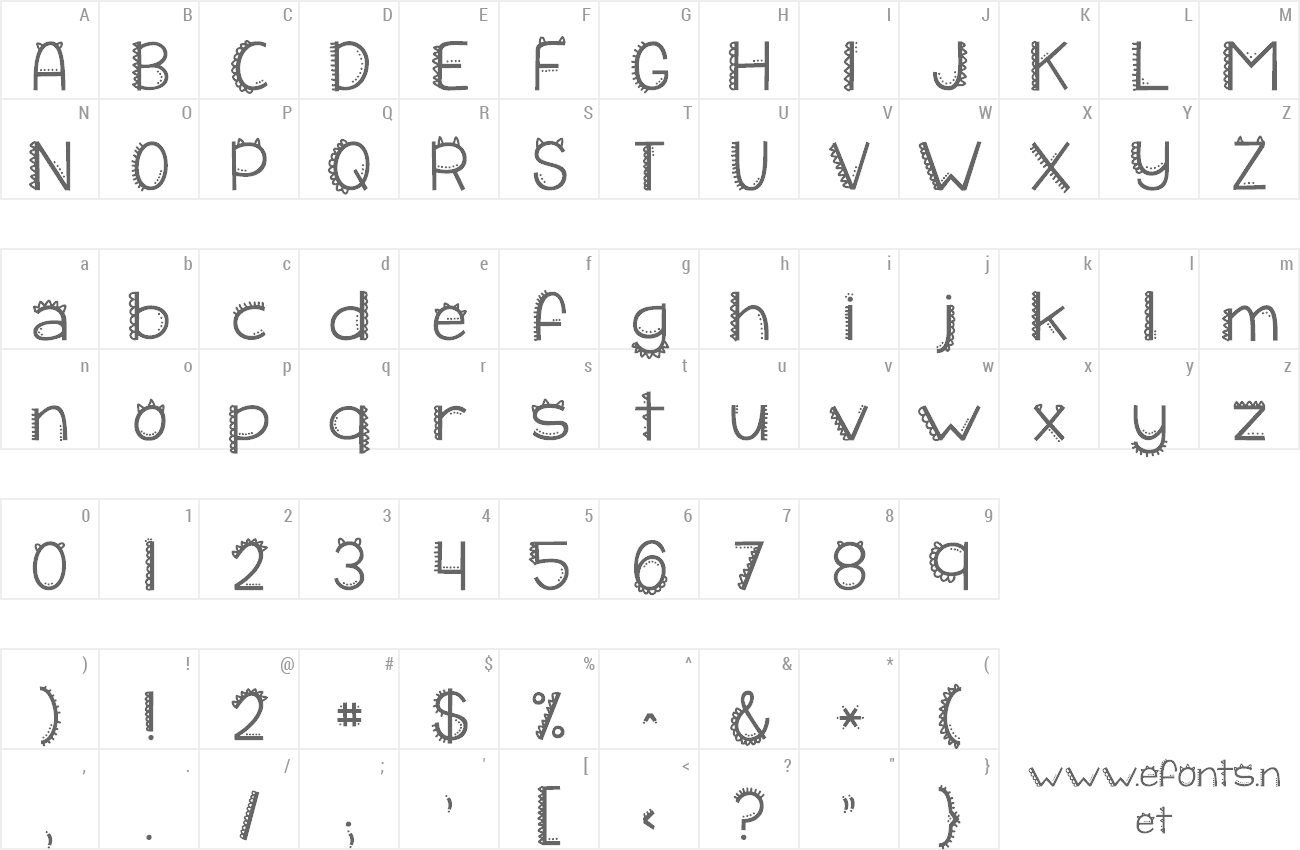
Preview and download KG I Like To Move It Font. Created by Kimberly Geswein in Fancy Cartoon styles with Free for personal use license.
This font was dreamed up by my 8-year-old daughter. She had specific requirements for what she wanted in her funky, decorated font. She is the dancer in our family, so it is named appropriately for her. Free for personal use. For commercial licensing, please see http://kimberlygeswein.com |